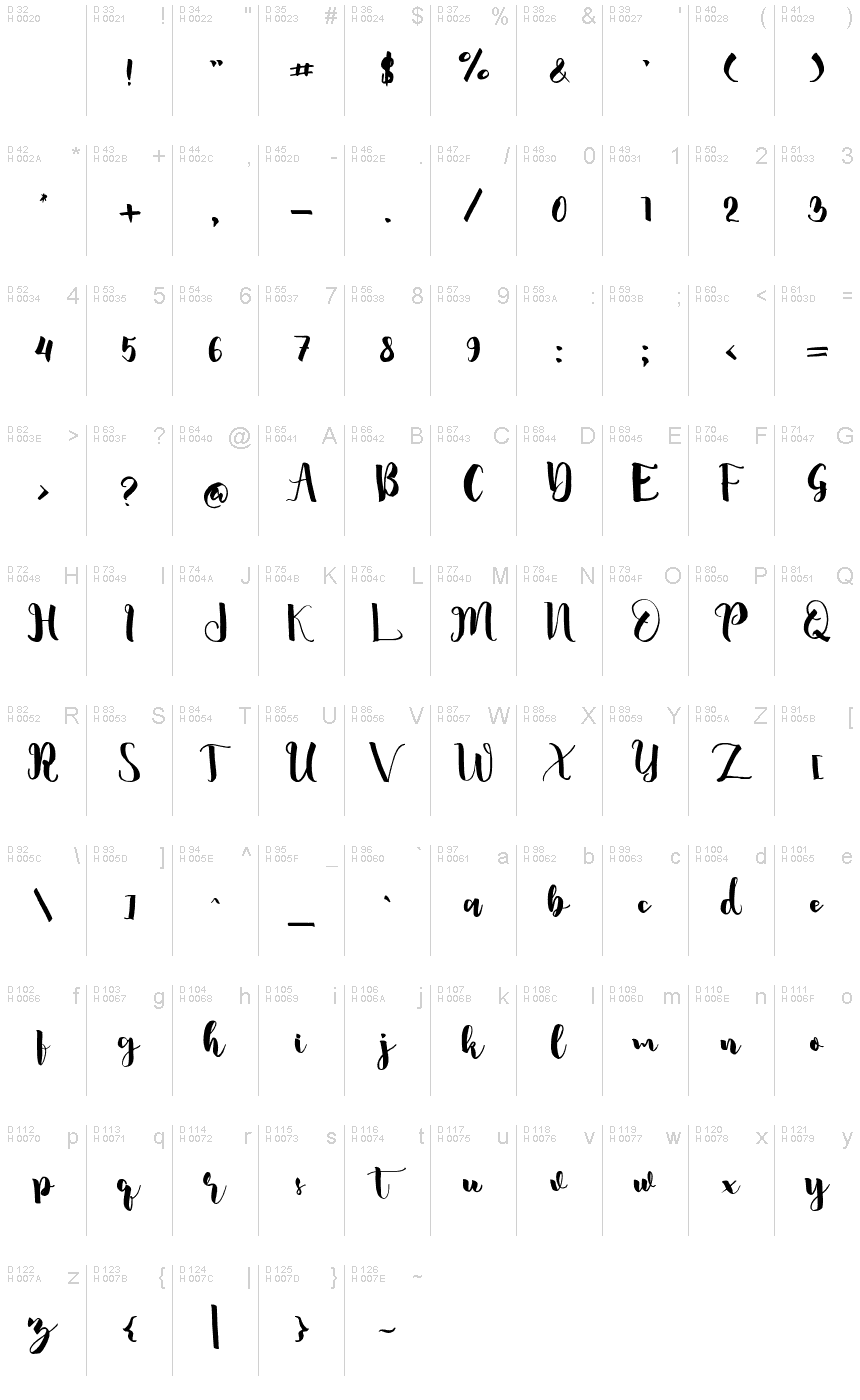
Nesha
Nesha, the bold and creative brush font designed by Infontree Store, is perfect for projects that require a touch of personality and flair. With its thick, expressive strokes and playful curves, Nesha is ideal for everything from posters to packaging design. Its dynamic and energetic style will add a unique touch to any project, making it perfect for branding materials or social media graphics. Whether you're creating eye-catching logos or standout headlines, Nesha's boldness will elevate your designs to the next level. Give your work the edge it deserves with Nesha!